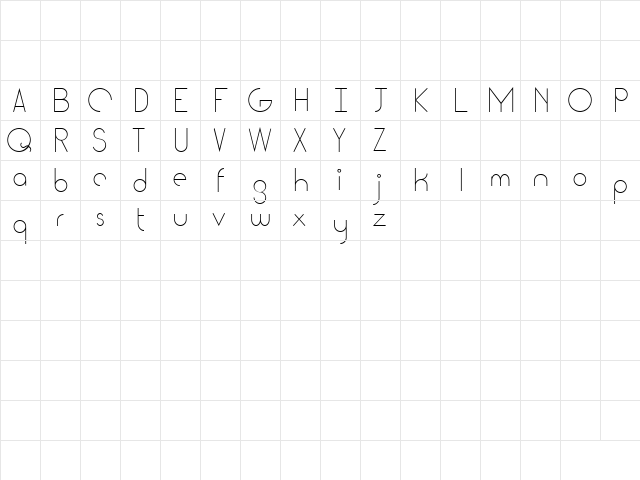
Cattia Demo font
| Designer | Vyacheslav Artemenko |
Design Context for Cattia Typeface
Cattia offers clean, dependable letterforms without strong stylistic allegiance, making it a practical choice for designers who need flexibility.